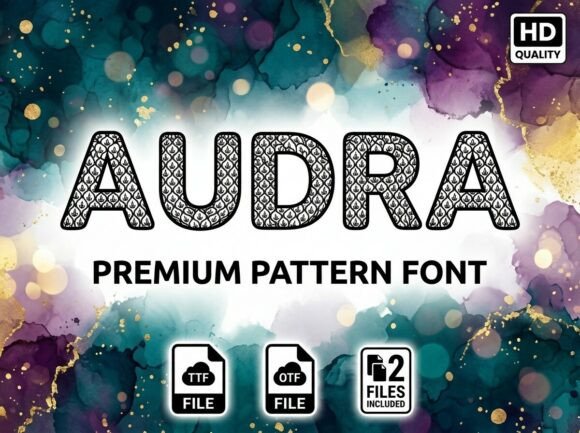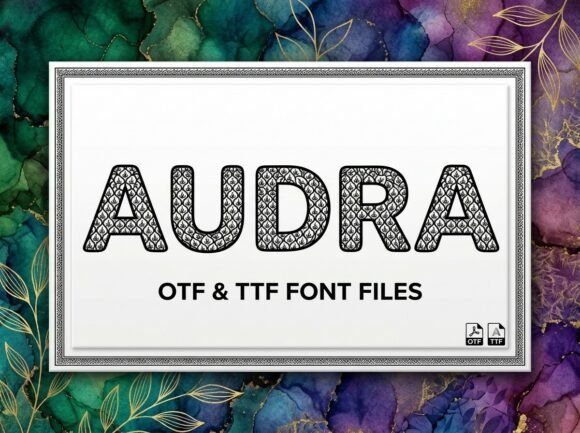
Discover the Elegance of Audra Font
Have you ever found yourself lost in a sea of digital fonts, searching for that one perfect match to elevate your brand’s aesthetic? I know I have. It’s the moment when you finally stumble upon a font that speaks to you – its curves, its lines, its unique character. For me, that moment came when I laid eyes on the Audra Font, a sophisticated display typeface that embodies the essence of luxury and refinement.
Audra Font is more than just a font – it’s an experience. Its bold, rounded letterforms are infused with an internal texture of rhythmic, hand-drawn patterns, reminiscent of vintage textile design. This premium font is perfect for designers seeking to create high-end identities, from boutique fashion labels to luxury candle packaging, and even high-impact social media headers.
Audra Font Key Features
- Font Family: Audra is a sans-serif font family.
- Unique Characteristics: The font features clean lines, rounded edges, and a friendly feel, making it suitable for various design projects, including branding, advertising, and editorial content.
Audra Font Review
Overall, I was quite impressed with the Audra Font. Here are some things that stood out to me:
- ✨ Elegant and sophisticated design: The Audra Font has a timeless feel to it, making it perfect for any high-end brand or luxury product.
- ✨ Great for long texts: The font’s design ensures that it remains readable even in large blocks of text, making it ideal for books, magazines, or websites with extensive content.
- ✨ Beautiful italics and bold styles: The font’s italics and bold styles are well-designed and add a touch of elegance to any text.
However, there are a few limitations that I’d like to point out:
- ⚠️ Limited language support: The Audra Font seems to be primarily designed for Latin-based languages, which might limit its usability for other languages.
- ⚠️ Limited font sizes: While the font is great for long texts, it can look a bit clumsy when used at very small font sizes.
Overall, the Audra Font is a beautiful and elegant choice for any high-end brand or luxury product. While it has some limitations, its strengths far outweigh its weaknesses, making it a great addition to any designer’s toolkit.
Tips: Use Audra font for titles and headings to add a touch of elegance to your designs.
Tips: Use Audra font for text overlays or titles in your designs to add a touch of sophistication.
Tips: Use Audra font for headings and titles to add a touch of professionalism to your documents.
Audra font is suitable for:
- Editorial and publishing designs
Tips: Use Audra font to add a touch of elegance and sophistication to your designs, and to create a consistent visual brand identity.